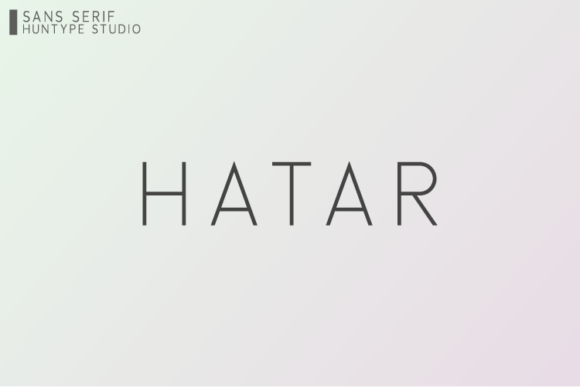
**Introducing Hatar Font: The Epitome of Elegance**
Step into the world of Hatar, a captivating sans serif font that embodies sophistication and warmth. Crafted by the skilled hands of Huntype, Hatar is a versatile masterpiece that empowers designers to create captivating and extraordinary designs.
**A Symphony of Strength and Finesse**
Hatar's strong and towering capitals command attention, while its smooth and inviting lowercase letters embrace you with warmth. This harmonious blend of contrasting elements creates a symphony of visual delight that dances across your designs.
**Boundless Applications, Endless Possibilities**
Whether you're crafting elegant logos or compelling headlines, designing captivating social media posts or alluring advertisements, Hatar rises to every challenge with effortless grace. Its adaptability knows no bounds, allowing you to weave your creative vision into reality seamlessly.
**Exceptional in Formal and Casual Settings**
Hatar's versatility extends beyond its applications. It shines in both formal settings, where its refined character adds a touch of class, and non-formal designs, where its playful spirit brings a smile to every viewer.
**A Font That Ignites Emotion**
Hatar's allure lies not only in its visual appeal but also in its ability to evoke emotions. Its warm and inviting nature fosters a sense of comfort and connection, while its strength and elegance inspire confidence and aspiration.
**Elevate Your Designs to Unprecedented Heights**
With Hatar as your creative companion, you'll unlock a world of possibilities. Its versatility, emotional depth, and captivating nature will empower you to create designs that transcend ordinary and soar to extraordinary heights.